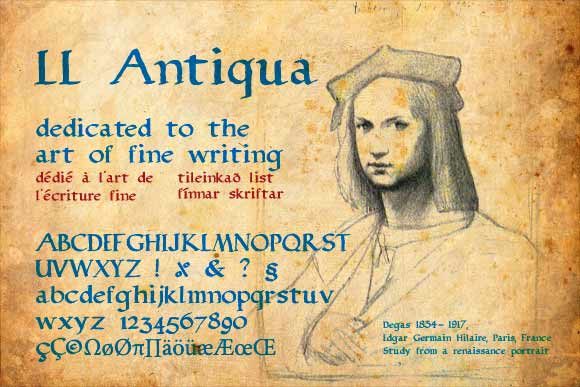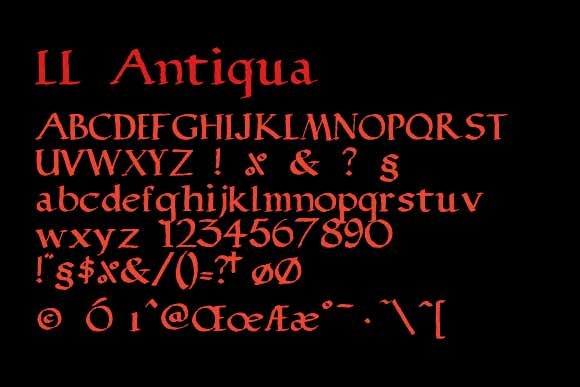
Introduction to LL Antiqua Font
Have you ever found yourself rummaging through a dusty old archive, searching for the perfect font to bring your creative project to life? Perhaps you’re working on a medieval-themed design or a vintage-inspired advertisement, and nothing seems to capture the essence of the era. That’s when I stumbled upon the LL Antiqua Font, and I knew I had to share it with fellow designers.
This beautiful, high-quality font is a masterclass in fine writing, with intricate details that transport you back in time. The LL Antiqua Font is more than just a design resource – it’s a window into the past, offering a glimpse into the art of calligraphy and the craft of medieval scribes. With its unique combination of angled lowercase letters and rounded serifs, this font is a treasure trove for designers seeking a truly authentic look.
Key Features of LL Antiqua Font
- High-quality typography for a wide range of creative projects, including digital art and print materials.
- Designed with a unique, elegant aesthetic, making it perfect for projects requiring a touch of sophistication and refinement.
Honest Review: LL Antiqua Font
- ✨ Beautifully crafted letters with a classic, elegant feel
- ✨ Suitable for a wide range of design applications, from headings to body text
- ✨ Great for creating a professional, polished look in any design project
- ⚠️ Limited character set, which may not be suitable for complex texts or languages
Overall, I’m impressed with the LL Antiqua Font. While it may have some limitations, its high-quality design and free download make it a valuable resource for designers. If you’re looking for a classic, elegant font for your next creative project, the LL Antiqua Font is definitely worth considering.
LL Antiqua Font is a versatile design resource that can be used for various creative projects, such as wedding invitations, birthday cards, and business logos. Its high quality and transparent background make it an ideal choice for designers who want to create professional-looking designs.